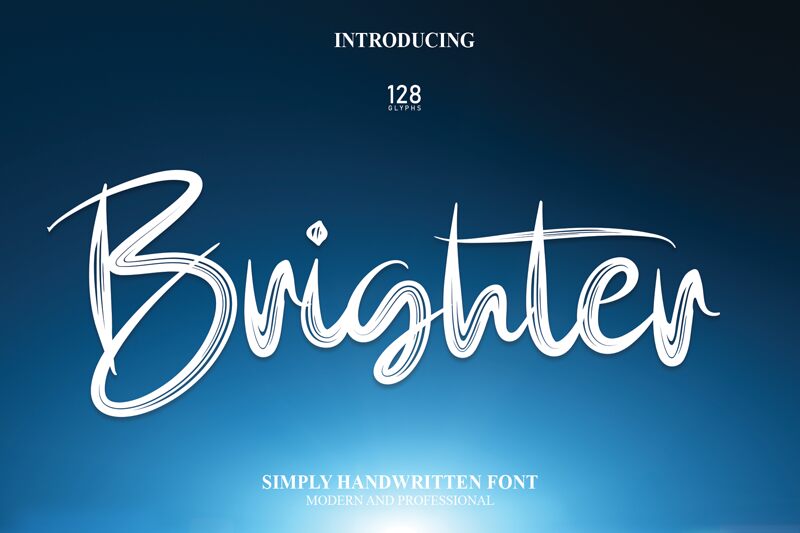
Brighter
Brighter is a captivating brush font designed by Scratchones.
Its semi-light weight brings a delicate touch to any project, making it perfect for whimsical invitations and greeting cards. With its fluid strokes and playful appeal, Brighter adds a touch of elegance to wedding stationery and feminine branding materials. This versatile typeface is also well-suited for children's books, providing a charming and approachable look that captures the imagination. Whether you're designing for weddings, children's literature, or anything in between, Brighter will infuse your work with warmth and creativity.